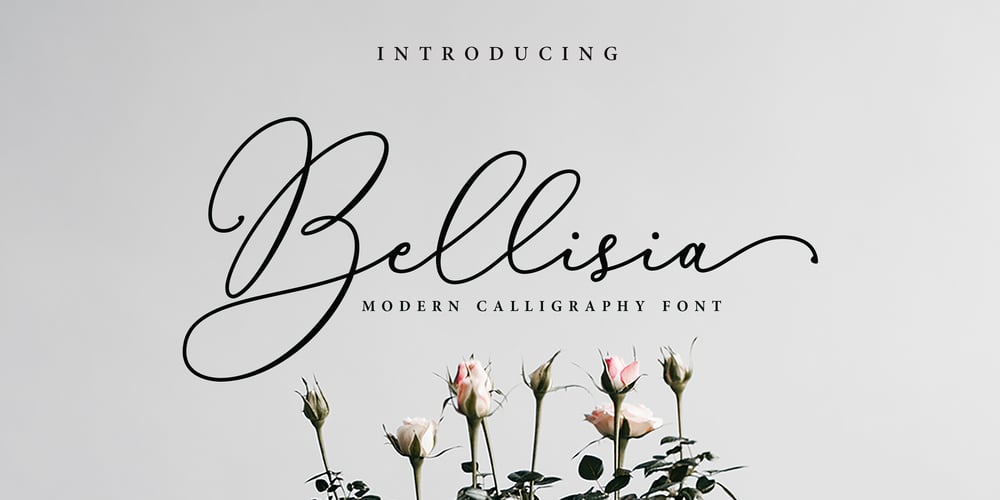
Bellisia Font Family was designed by Faisal Tanjung and published by sizimon. Bellisia contains 4 styles and family package options. Bellisia is a modern calligraphy font and perfect for logotype, website headers, fashion design, wedding card designs and more. It contains a full set of lower & uppercase letters, a large range of punctuation, numerals, and multi-lingual support. Multilingual support : Danish, Finnish,English, Spanish, Dutch, German, Icelandic, Italian, Norwegian, Portuguese, Indonesian, Swedish, Basque, Bosnian, Catalan Cornish, Croatian, Czech, Embu, Esperanto, Estonian, Faroese, Filipino, French, Galician, Hungarian, Irish, Malay, Maltese, Manx, Maori, Meru, Morisyen, North Ndebele, Bokmål, Norwegian Nynorsk, Nyankole, Oromo, Polish, Romansh, Serbian (Latin), Slovak, Slovenian, Swiss German